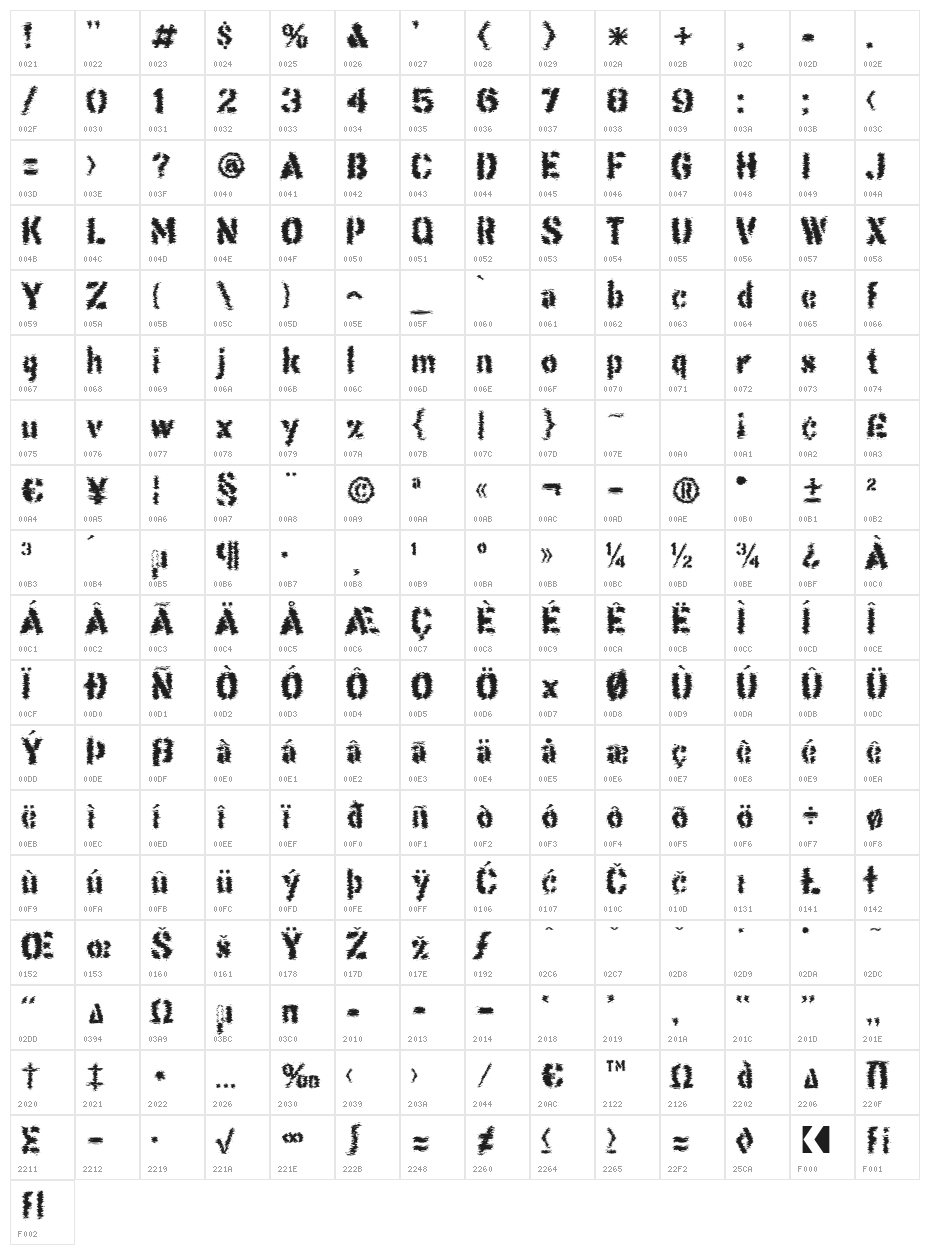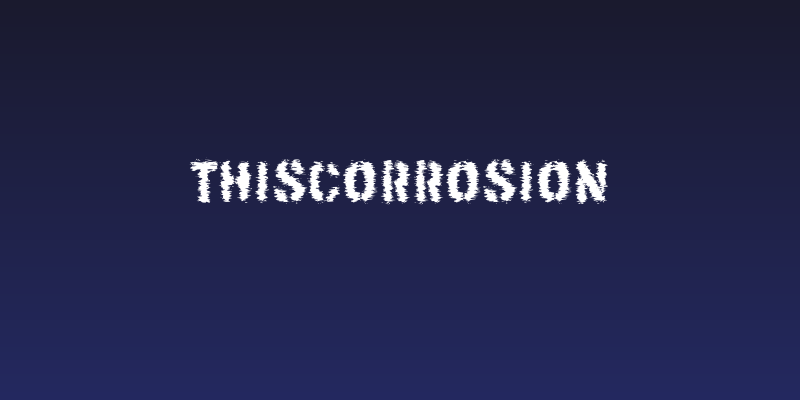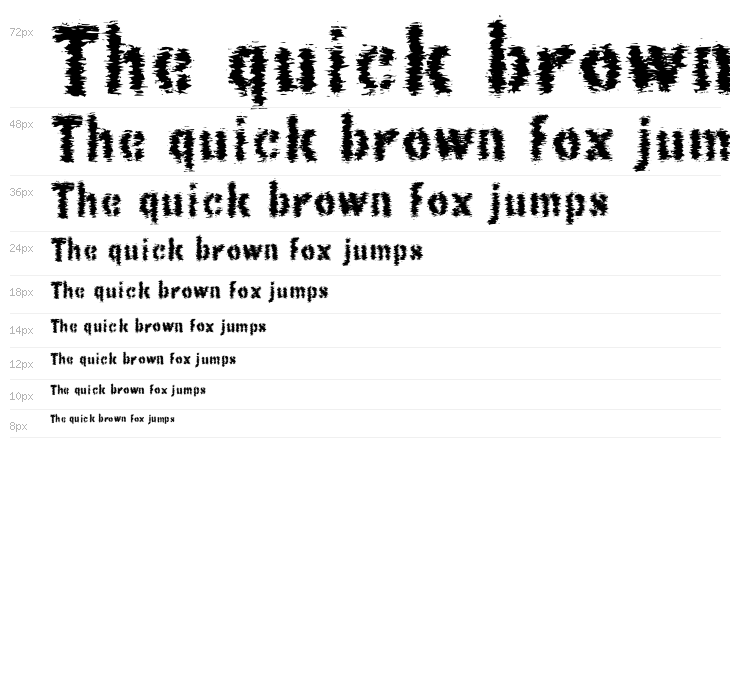
ThisCorrosion Font
ThisCorrosion Description
This font features a distressed, eroded appearance, reminiscent of weathered or corroded surfaces. The characters are bold and heavily textured, with irregular edges that give a sense of decay or wear. This style creates a strong visual impact, making it suitable for designs that require a gritty, industrial, or vintage aesthetic. The uppercase and lowercase letters maintain consistent proportions, while the numbers and special characters share the same rugged texture. Overall, the font conveys a sense of rawness and authenticity, ideal for projects that aim to evoke a sense of history or ruggedness.